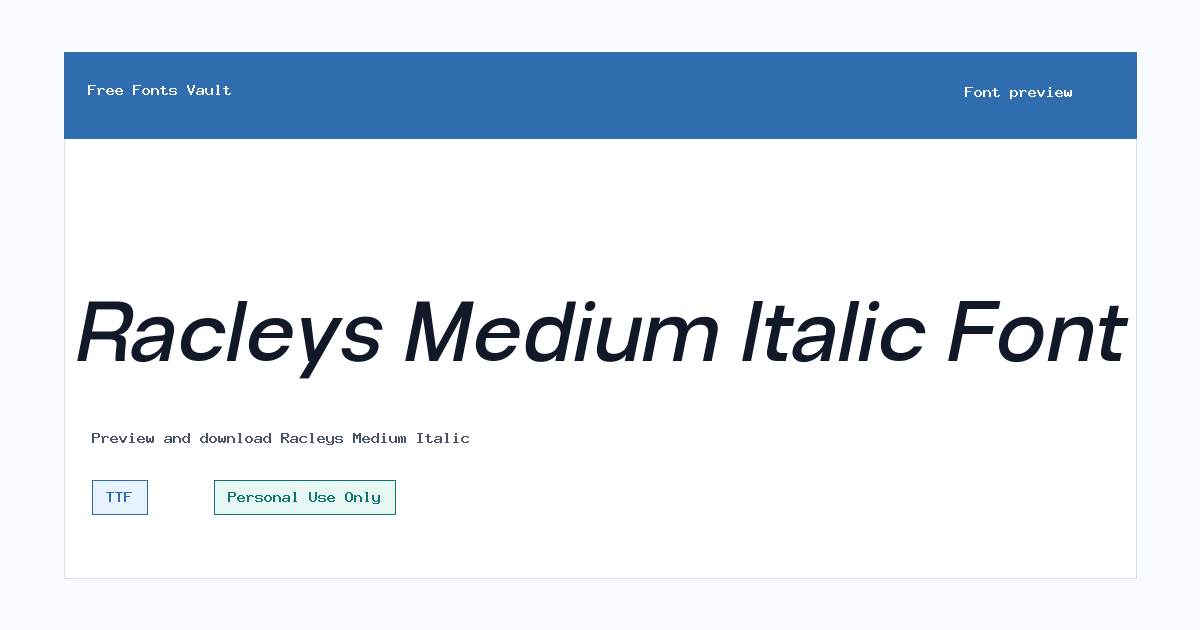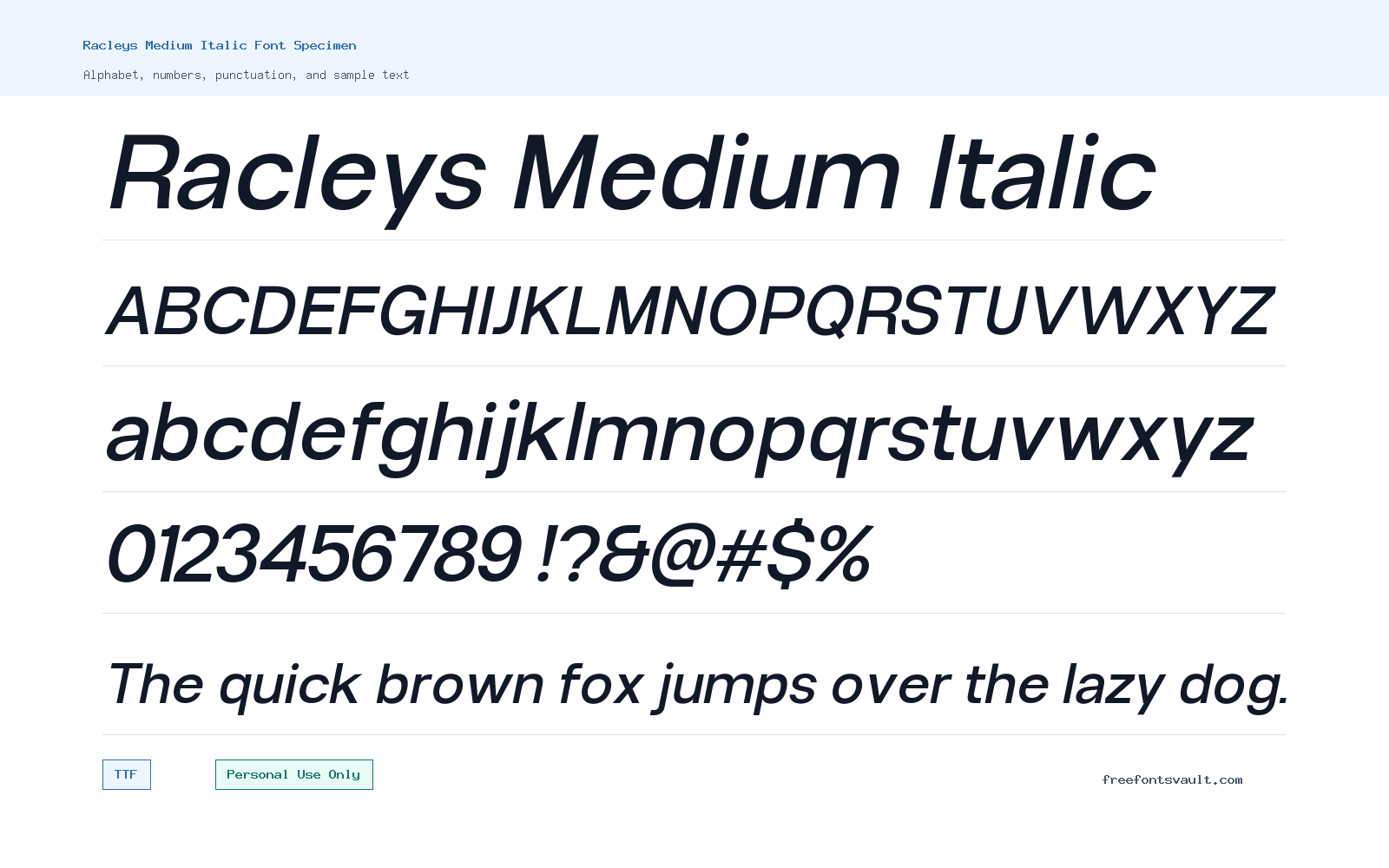
Racleys Medium Italic
Racleys Medium Italic font preview showing the family name
Racleys Medium Italic Font
Racleys Medium Italic font specimen showing alphabet, numbers, and sample text
Racleys Medium Italic font.
Racleys Medium Italic is a slanted sans serif font style for designers who want a cleaner display look with a bit of motion. It works best in short, visible text where the italic angle can add emphasis without needing extra decoration.
About Racleys Medium Italic
Racleys Medium Italic is a TTF font with an italic style and a medium weight. The name points to a sans serif family style, and this cut is best approached as a display-friendly italic rather than a long-reading text face. Its medium weight should give headings and short lines more presence than a light italic, while the slant can make words feel more active on the page. That makes it useful for logo sketches, poster headlines, social graphics, editorial title treatments, packaging concepts, and web mockup sections where a standard upright sans serif feels too plain.
For best results, test Racleys Medium Italic with the exact words you plan to use. Italic fonts can change spacing and rhythm quickly, especially in all caps, narrow layouts, or long phrases. Try it first in brand names, short taglines, section headers, quotes, button mockups, and title cards. If the letters begin to feel too busy in paragraph text, keep it for emphasis and pair it with a neutral upright sans serif for body copy. In logo work, check the shape of repeated letters, the spacing between angled strokes, and how the design holds up at small sizes before committing to it.
• Medium-weight italic sans serif style suited to short display text and emphasis.
• Useful for testing logo drafts, poster headings, web mockups, social graphics, and title treatments.
• Slanted letterform style can add movement to otherwise simple typography.
• Best used in controlled text lengths where spacing and readability can be checked carefully.
• Logo concepts and wordmark drafts for personal projects
• Poster titles, event graphics, and display headlines
• Website hero mockups, section headings, and callout text
• Social media quote cards, banners, and promotional layouts
• Packaging mockups, label studies, and presentation visuals
• Short taglines or accent words paired with a plainer body font
Use Racleys Medium Italic where the text is short enough for the slant and spacing to stay clear. It can work well as a headline or accent font, but it should be tested carefully in long paragraphs, small UI labels, and dense layouts. For pairings, choose a simple upright sans serif for body text so the italic style remains the visual accent. In logo and poster work, preview the font in uppercase, lowercase, and mixed-case settings, then adjust letter spacing if the angled forms feel tight.
What kind of font is Racleys Medium Italic?
It is an italic sans serif style with a medium weight, designed for slanted display text, emphasis, and short design settings.
Is Racleys Medium Italic good for body text?
It is better for short text than long reading. Use it for headings, quotes, names, and accents, then pair it with a neutral upright font for paragraphs.
What should I check in the font preview?
Check the spacing between angled letters, how your words look in uppercase and lowercase, and whether the medium italic style stays readable at the size you plan to use.